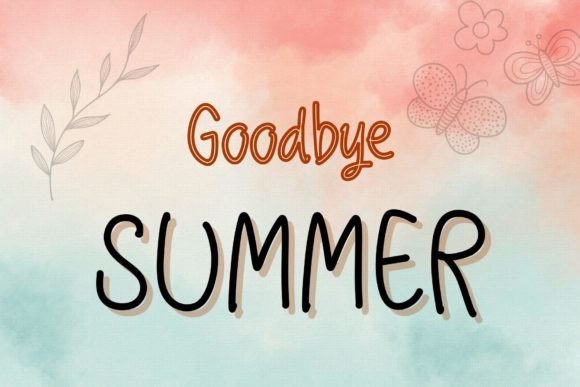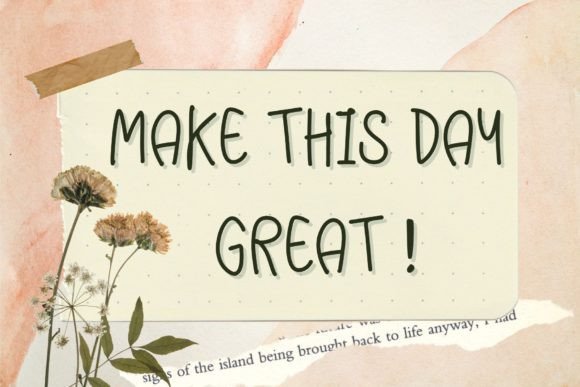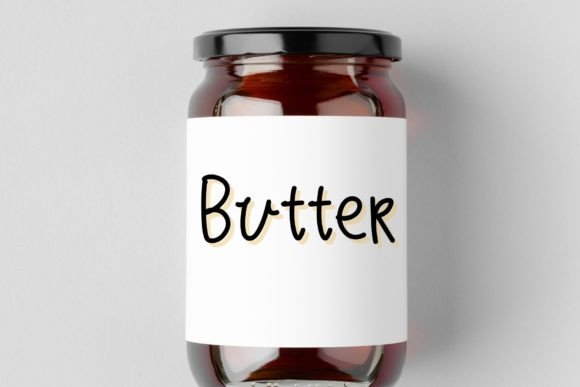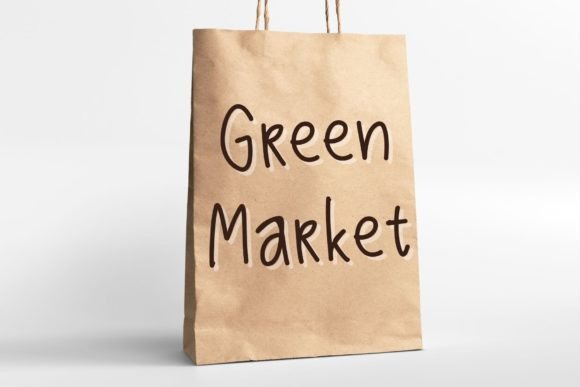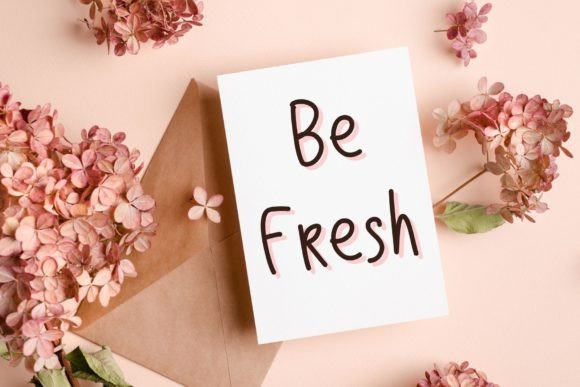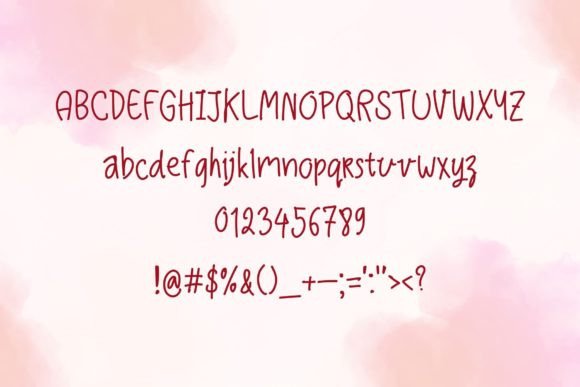
Discover the Elegance of Alluring Viola Font: Elevate Your Designs with Sophistication and Style
As a designer or creative, you’re constantly on the lookout for the perfect typography to elevate your projects and make them stand out. Look no further than the Alluring Viola font, a stunning and versatile typeface that’s sure to add a touch of sophistication and style to any design. In this article, we’ll dive into the world of Alluring Viola font, exploring its unique features, benefits, and uses, and why it’s the perfect choice for designers and creatives looking to upgrade their design projects.
What is Alluring Viola Font?
Alluring Viola font is a beautifully crafted typeface that’s designed to bring a touch of elegance and refinement to your designs. With its sleek lines, flowing curves, and sophisticated style, this font is perfect for a wide range of projects, from luxury branding and advertising to packaging, magazines, and more. Whether you’re looking to create a bold statement or a subtle impression, Alluring Viola font is the perfect choice.
Unique Features of Alluring Viola Font
So, what sets Alluring Viola font apart from other typefaces? Here are just a few of its unique features:
- Elegant and Refined Design: Alluring Viola font boasts a sleek and sophisticated design that’s perfect for high-end branding and luxury projects.
- Versatile and Adaptable: This font is highly versatile and can be used in a wide range of projects, from digital designs to print materials.
- Highly Legible: Despite its elegant design, Alluring Viola font is highly legible, making it perfect for body text and longer blocks of copy.
- Extensive Character Set: This font includes an extensive character set, with support for multiple languages and a range of special characters.
Benefits of Using Alluring Viola Font
So, why should you choose Alluring Viola font for your next project? Here are just a few of the benefits of using this stunning typeface:
- Instantly Elevate Your Designs: With Alluring Viola font, you can instantly elevate your designs and add a touch of sophistication and style.
- Stand Out from the Crowd: This font is sure to make your designs stand out from the crowd and leave a lasting impression on your audience.
- Perfect for Luxury Branding: Alluring Viola font is perfect for luxury branding and high-end projects, where a sophisticated and refined aesthetic is essential.
- Save Time and Effort: With its highly legible design and extensive character set, Alluring Viola font can save you time and effort in your design projects.
How to Use Alluring Viola Font in Your Designs
Using Alluring Viola font in your designs is easy. Here are a few tips to get you started:
- Pair it with Bold Colors: Alluring Viola font looks stunning paired with bold colors and striking imagery.
- Use it for Headings and Titles: This font is perfect for headings and titles, where its elegant design can really shine.
- Experiment with Different Sizes: Don’t be afraid to experiment with different sizes and styles to find the perfect fit for your project.
| Font Name | Alluring Viola Font |
| Author | MinkiArte |
In conclusion, Alluring Viola font is the perfect choice for designers and creatives looking to add a touch of sophistication and style to their projects. With its elegant design, versatility, and highly legible style, this font is sure to elevate your designs and make them stand out from the crowd. Upgrade your design projects with Alluring Viola font and experience the perfect blend of sophistication and versatility. Add it to your font library today and let your creativity shine!